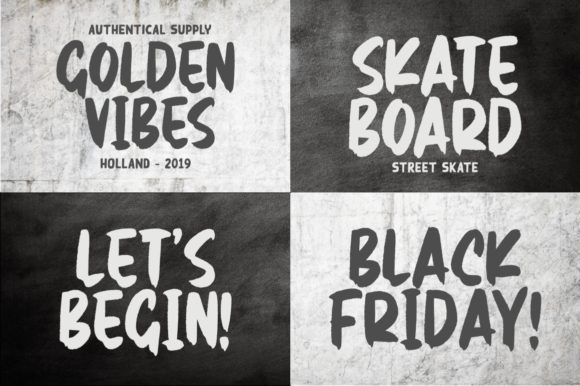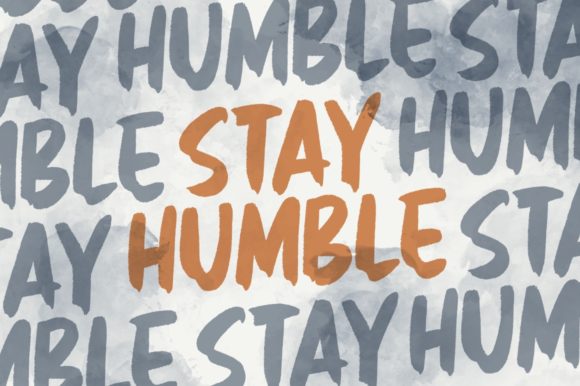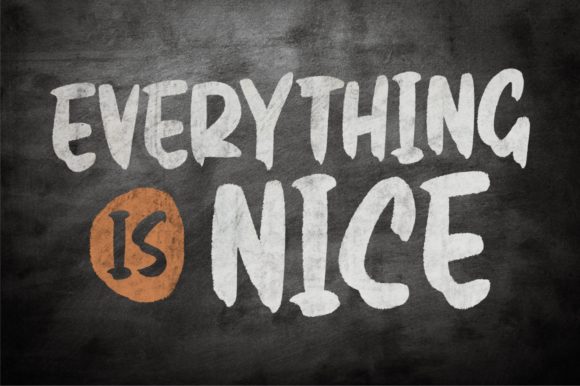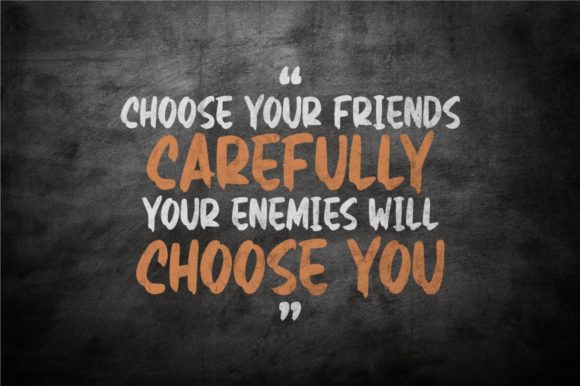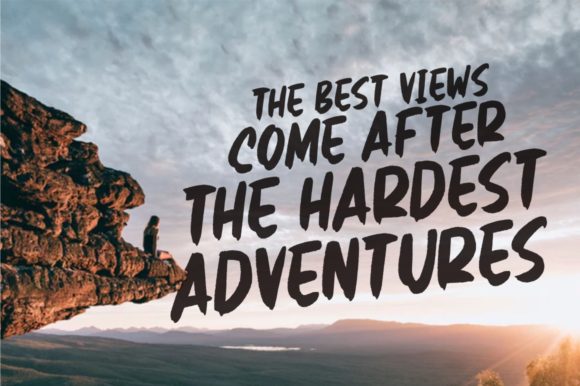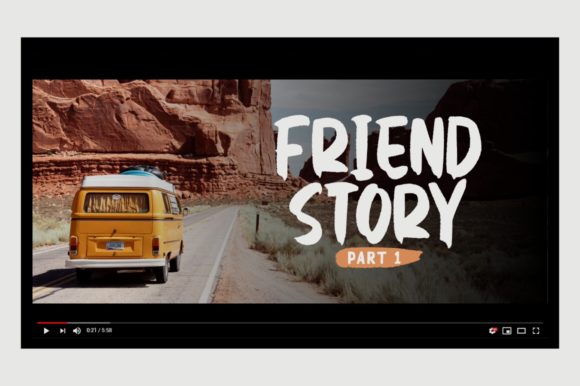
Introduction to Real Brush Font
Have you ever stared at a blank canvas, struggling to find the perfect font to bring your creative vision to life? As a designer, this is a familiar feeling, but with the right tool, it can be a thing of the past. That’s where Real Brush Font comes in – a stunning script font that combines the elegance of hand-painted curves with the edginess of urban typography.
Whether you’re working on a high-profile branding project or a personal creative endeavor, Real Brush Font is a valuable addition to your design resource arsenal. With its sleek, modern aesthetic and high-quality design, it’s the perfect choice for designers looking to add a touch of sophistication and style to their work. Plus, it’s available for free download, making it an accessible and versatile option for projects of all sizes.
But what really sets Real Brush Font apart is its versatility – from logos and branding to digital products and print materials, this font is sure to bring your creative project to life with its transparent background and unique, hand-crafted feel.
Key Features of Real Brush Font
- High-quality, realistic brush strokes for a unique and creative look in your design projects.
- Transparent background, making it easy to place your text over any image or design without any unwanted background elements.
- Perfect for creative projects, such as illustrations, graphics, and typography-based designs, where a high-quality brush font can make a big impact.
- Unique characteristics, such as subtle texture and organic feel, set Real Brush Font apart from other font options and add a touch of personality to your designs.
Honest Review: Real Brush Font
As a designer, I’m always on the lookout for high-quality design resources to enhance my creative projects. Recently, I stumbled upon the Real Brush Font, and I’m excited to share my honest review with you.
- Realistic Brush Strokes: The font’s brush-like strokes give it a unique, handmade feel that’s perfect for creative projects.
- High-Quality Design: The font is well-designed, with a clean and modern aesthetic that’s sure to impress.
- Transparent Background: The font’s transparent background makes it easy to use in a variety of design applications.
- Limited Character Set: The font only includes a limited set of characters, which may not be suitable for longer text-based projects.
- No Customization Options: The font is a fixed design, which means you can’t customize it to fit your specific needs.
Overall, I’m impressed with the Real Brush Font’s high-quality design and realistic brush strokes. While it has some limitations, it’s a great resource for designers working on creative projects. If you’re looking for a free, high-quality font to add some personality to your designs, the Real Brush Font is definitely worth checking out.
Real Brush Font is perfect for creative projects, such as invitations, posters, and social media graphics. It’s also great for designing business cards, flyers, and brochures. The font is high-quality and versatile, making it a great design resource for any project.